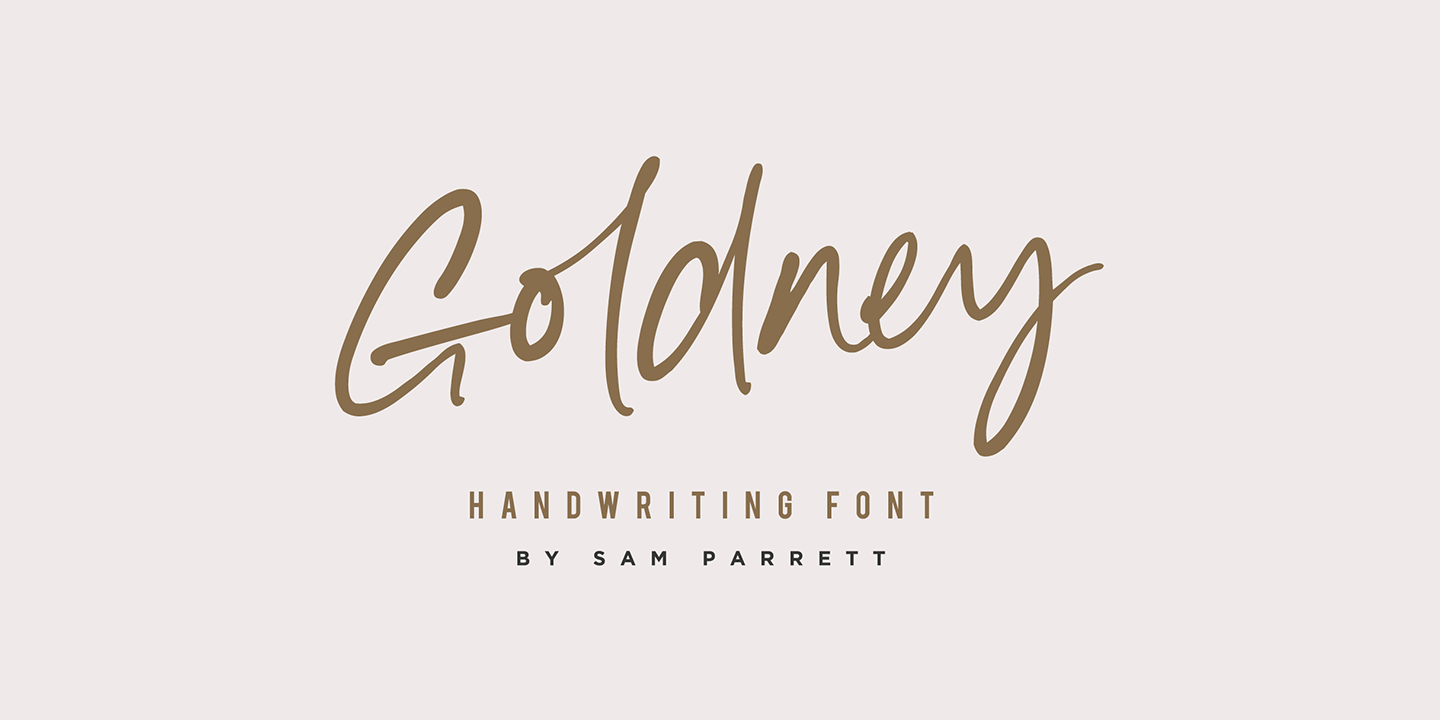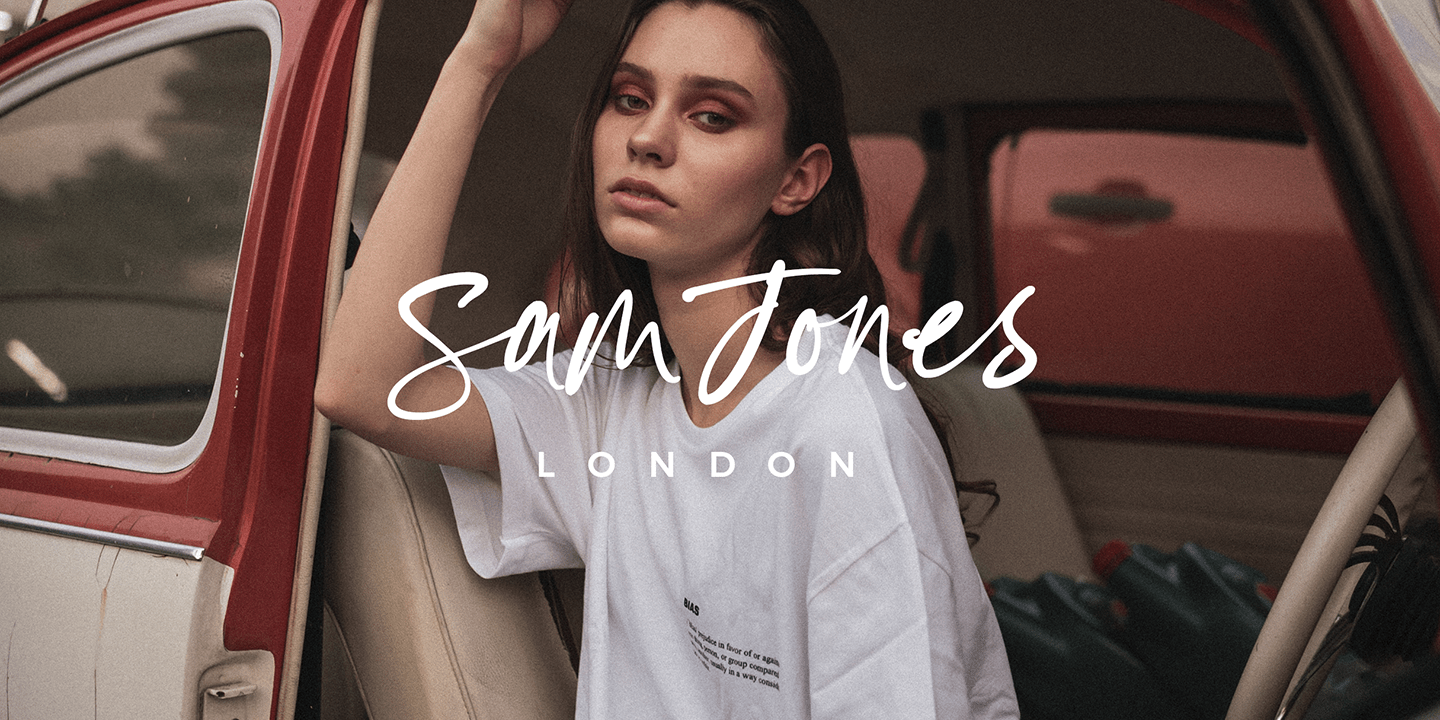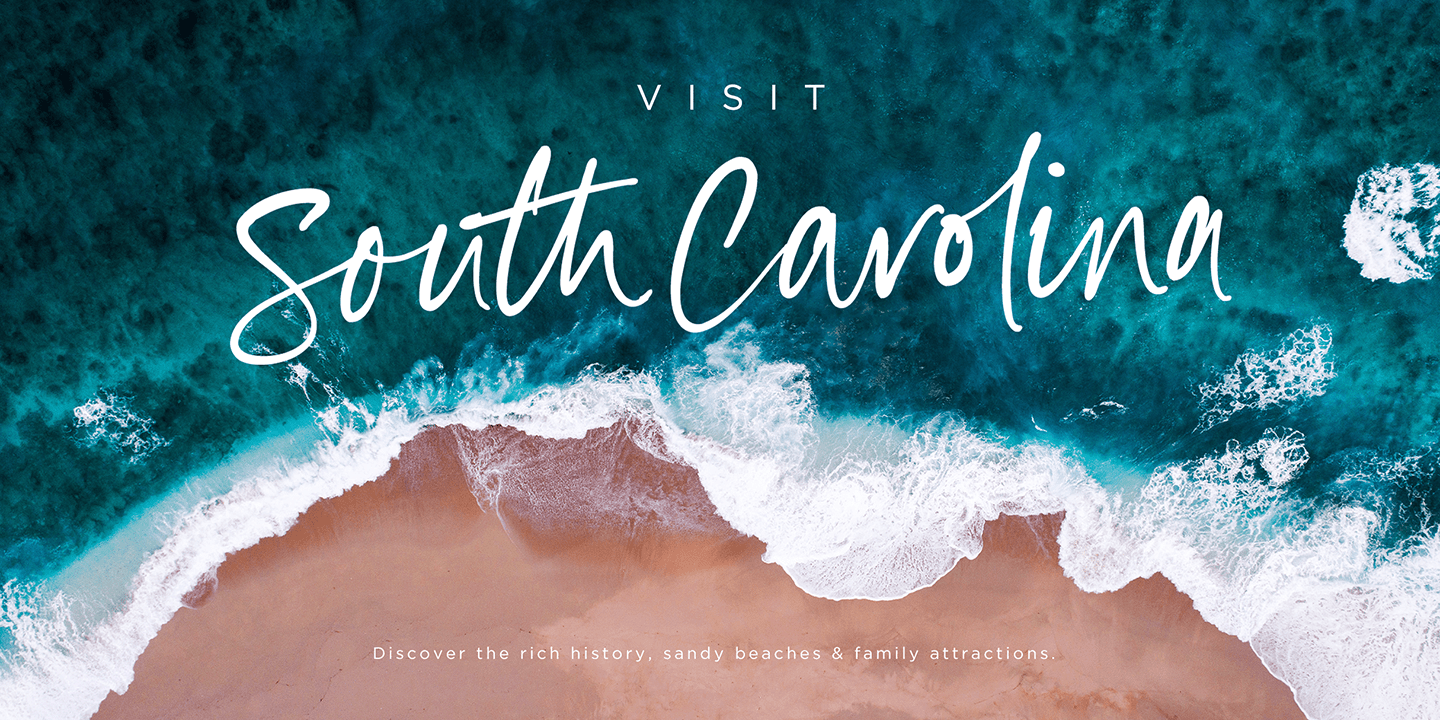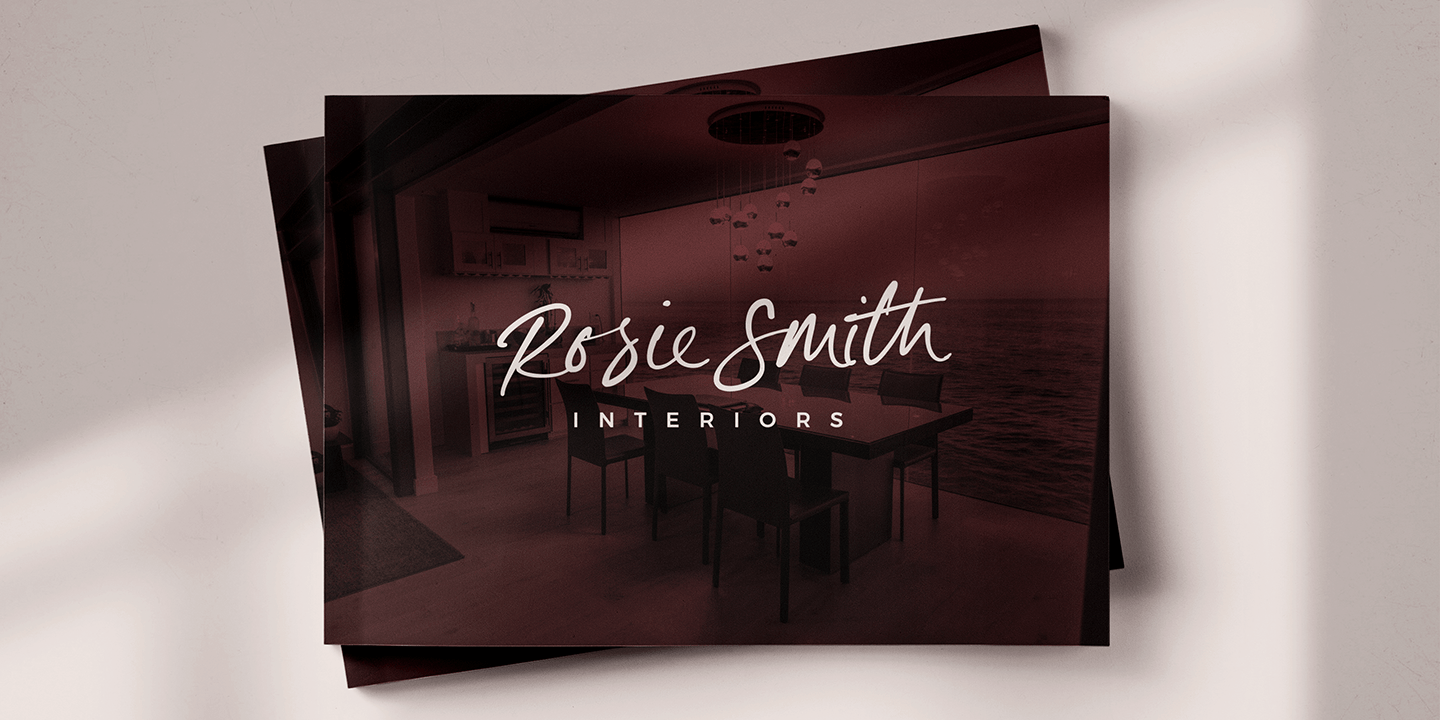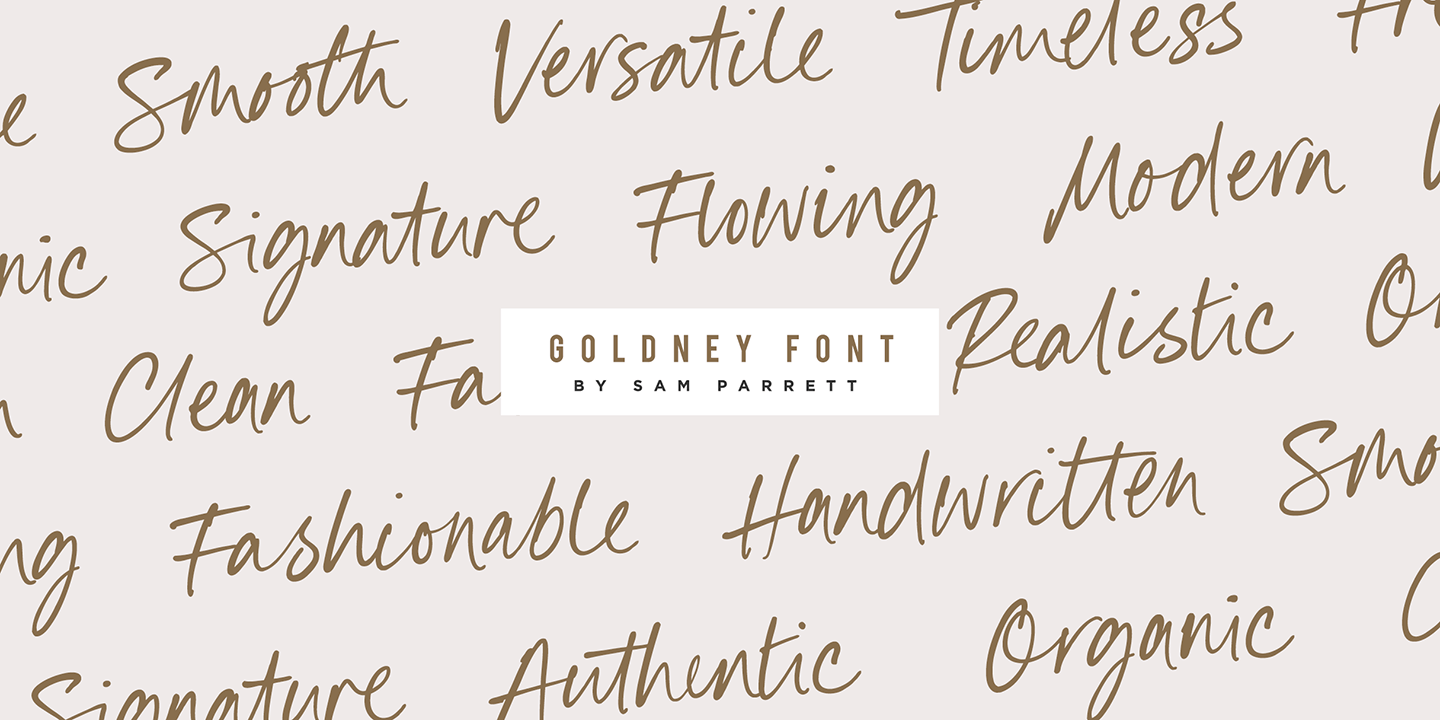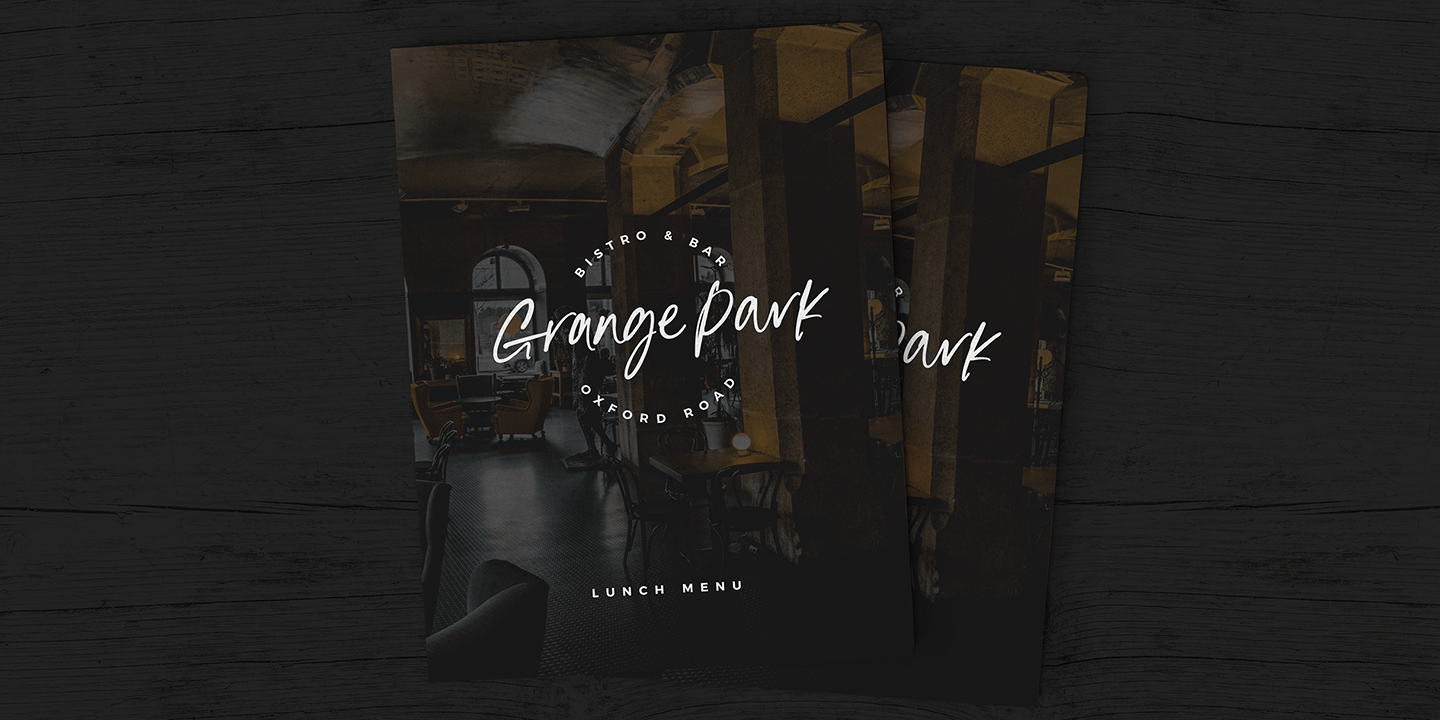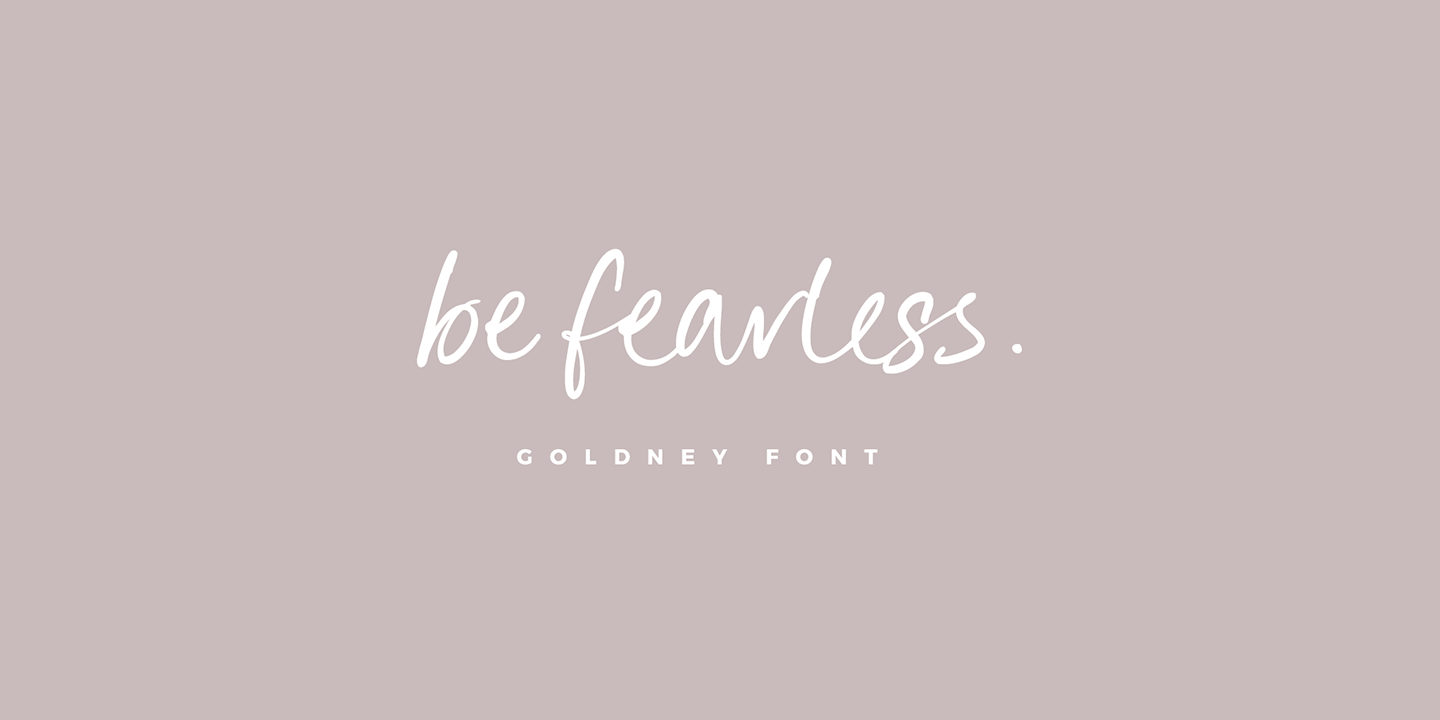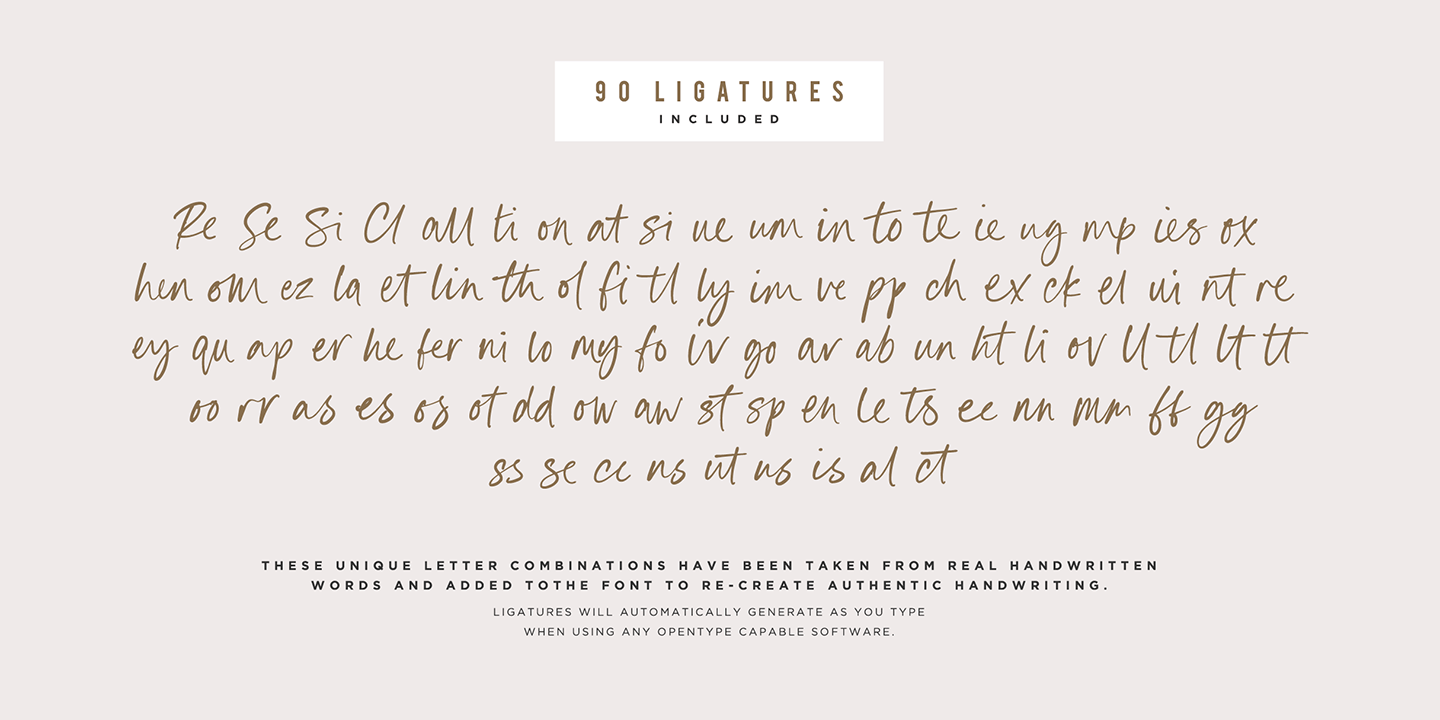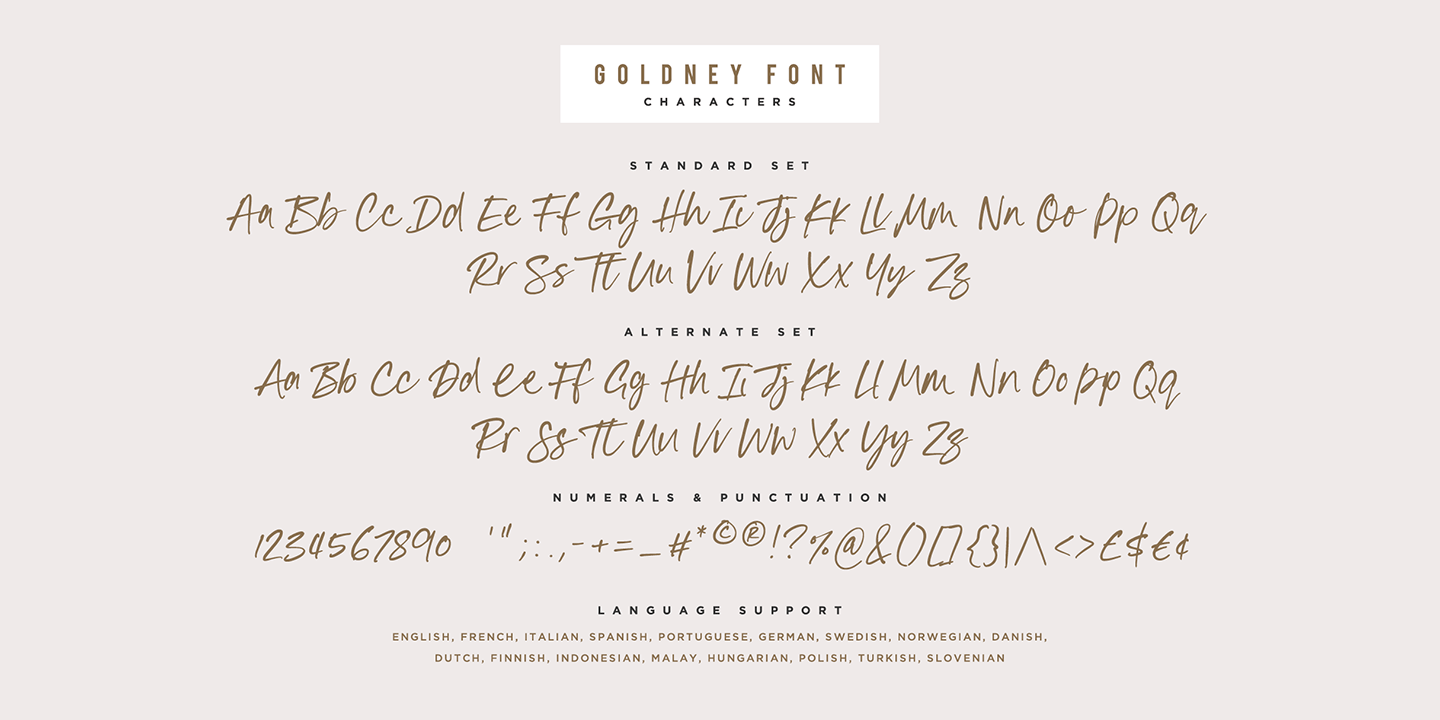
Goldney
Font Family by Set Sail Studios
There are a lot of script fonts out there - but Goldney isn't your average one, it's designed to be your go-to modern handwriting font. Goldney produces incredibly realistic letterforms and free-flowing sentences - this was achieved by writing out hundreds of individual words, then hand-picking the most natural looking letters. Also hand-picked was a whopping 90 Ligatures - these unique letter combinations give even more authenticity to each word layout. It's the perfect choice for genuine handwritten logos & branding, advertisement text, quotes, headers and product packaging.
Goldney • A handwritten script font containing upper & lowercase characters, numerals, and a large range of punctuation.
Goldney Alt • This is a second version of Goldney, with a completely new set of both upper and lowercase characters. If you wanted to avoid letters looking the same each time to recreate a custom-made style, or try a different word shape, simply switch to this font for an additional layout option.
Slanted Versions • Are included for both regular and alternate fonts. These can be used for a more italicised, fast-hand flow to your text.